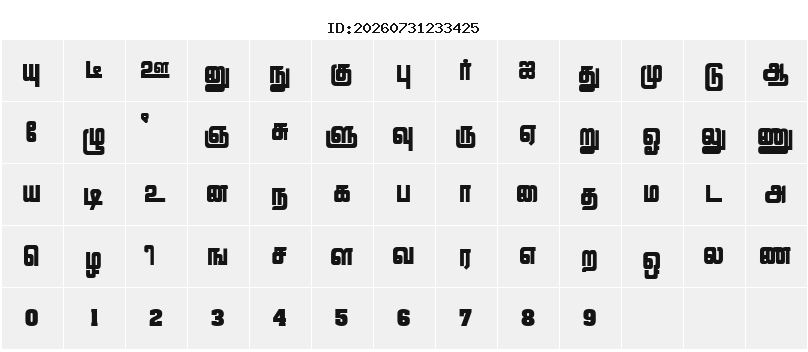
Lathangi Preview
• Font Name: Lathangi
• Font ID: Altsys Fontographer 3.5 Lathangi Regular
• Full Font Name: Lathangi Regular
• Version: Altsys Fontographer 3.5 1/6/4
• PostScript Name: Lathangi Regular
• Character Count: 101
About Lathangi.ttf
Lathangi.ttf is a modern, elegant sans-serif font designed for ultimate readability and visual harmony. Perfect for branding, headlines, web design, and print materials.